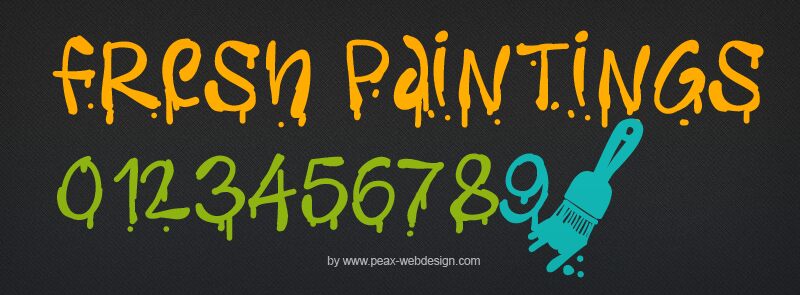
PW Fresh Paintings by Peax Webdesign is a free paint-drip decorative display font with tall, irregular letters and abrupt shifts between thick and thin strokes. Rounded blobs and dangling drops make the forms look freshly daubed.
Paint splatters and rough illustrations can echo those wet contours in music posters and festival graphics. That painted quality suits streetwear merchandise and youth packaging, where clean type would feel too restrained. In magazines, it can turn a feature opener into artwork rather than a neutral heading.